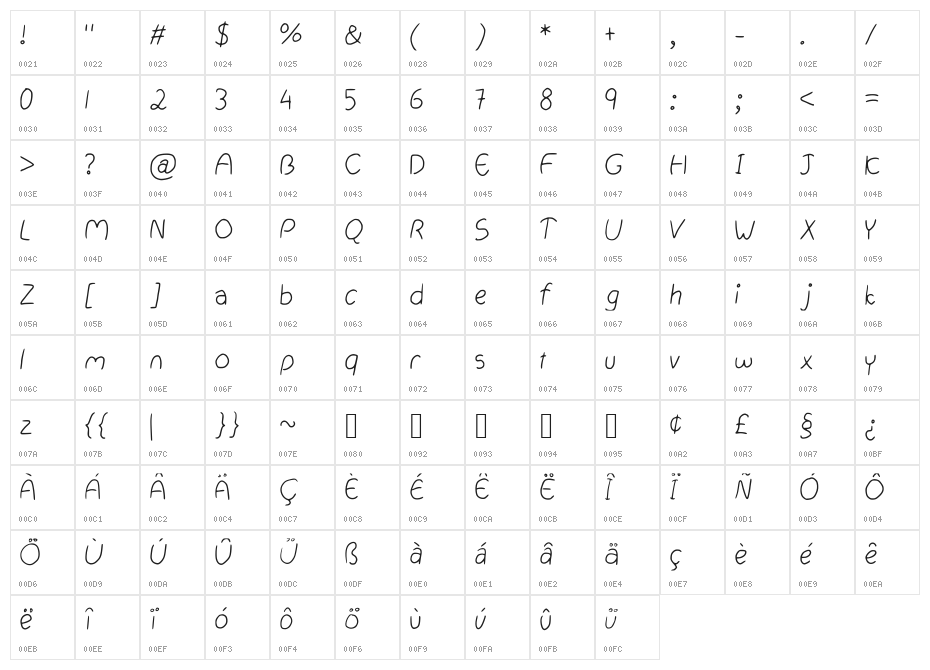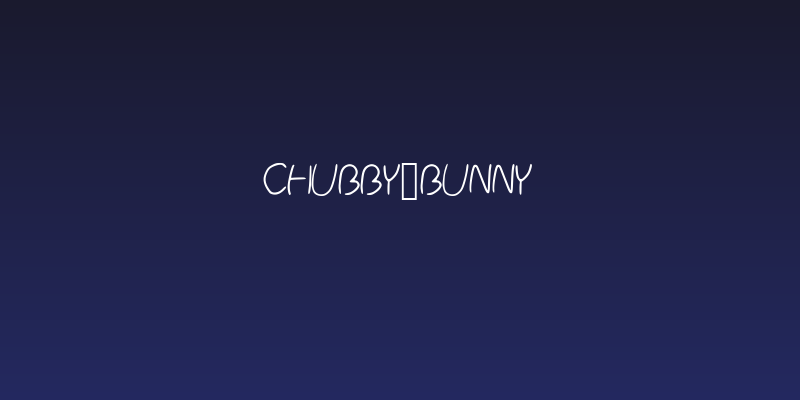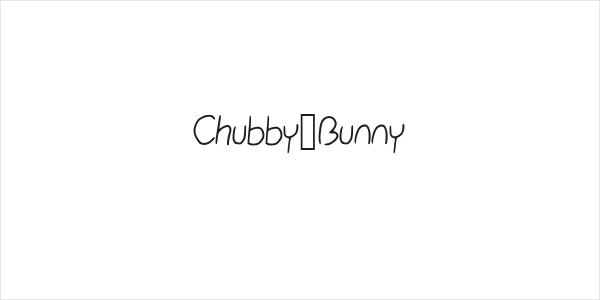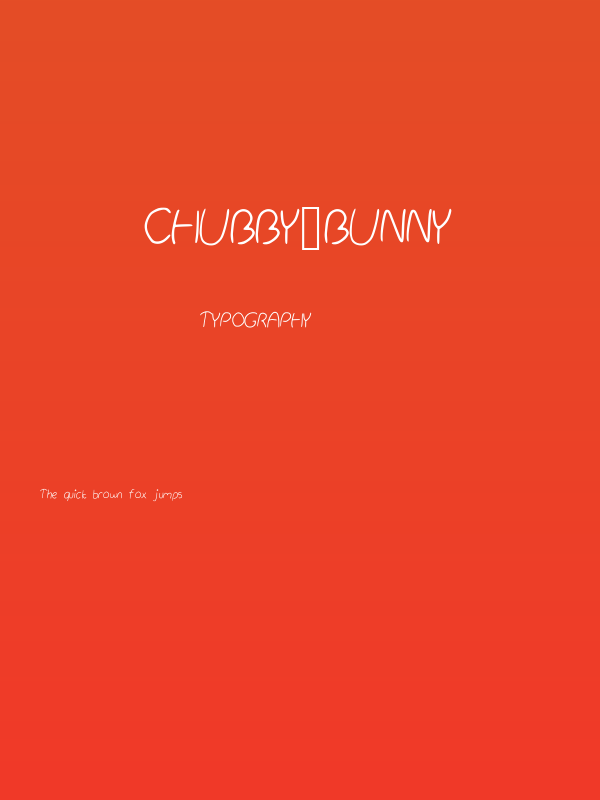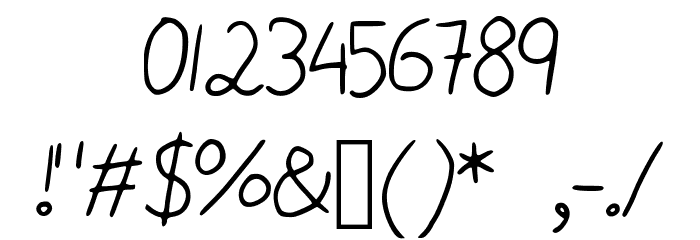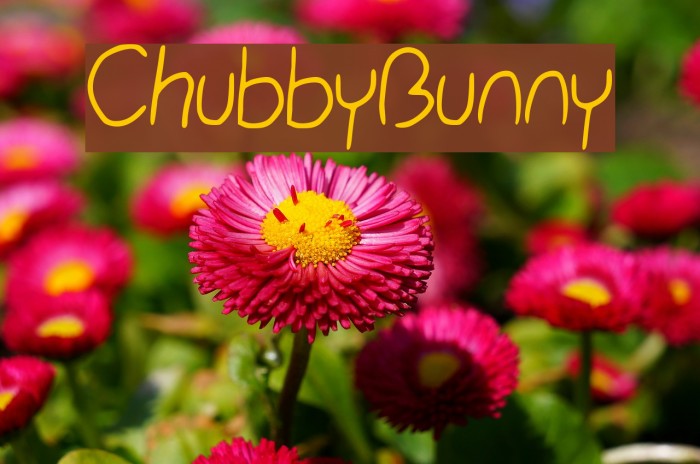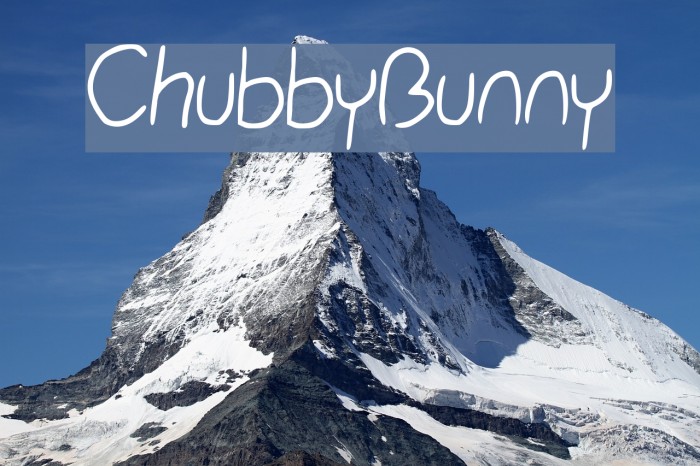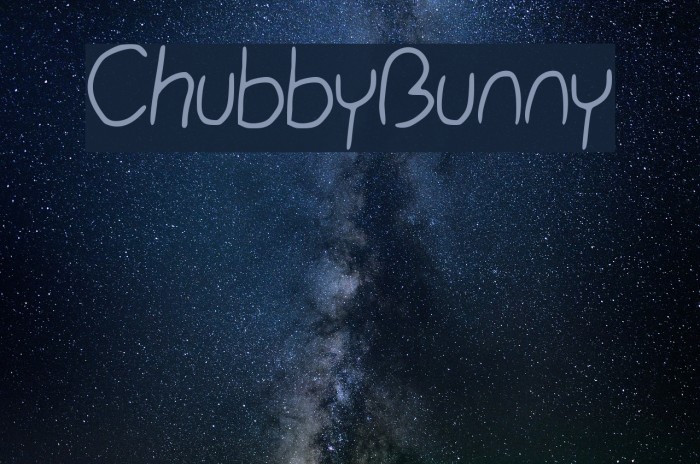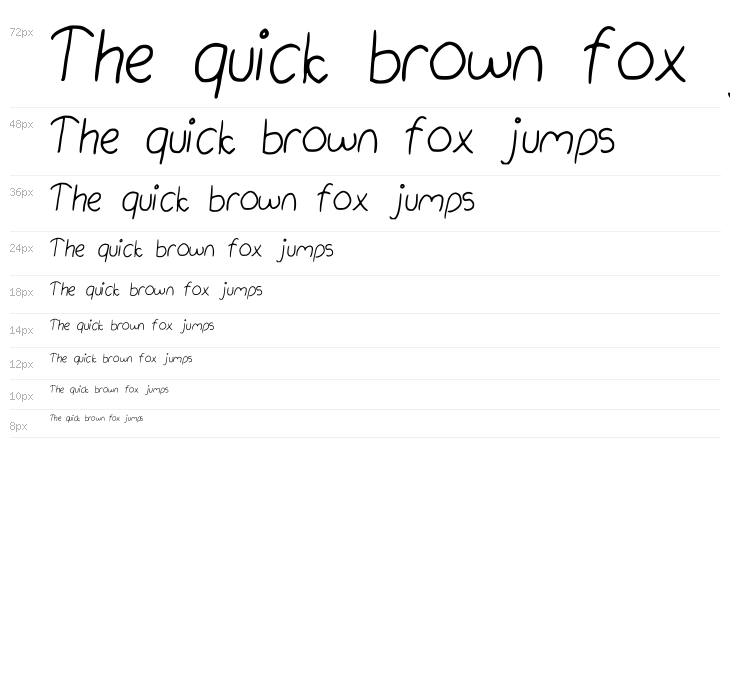
Chubby_Bunny Font
Chubby_Bunny Description
This playful and whimsical font features rounded, bubbly characters that exude a sense of fun and friendliness. The letters are slightly irregular, giving them a hand-drawn appearance that adds to their charm. The strokes are consistent in width, contributing to a cohesive look across both uppercase and lowercase letters. The numerals and special characters maintain the same playful style, making this font versatile for various uses. Its informal and approachable design makes it ideal for projects that aim to convey warmth and creativity.